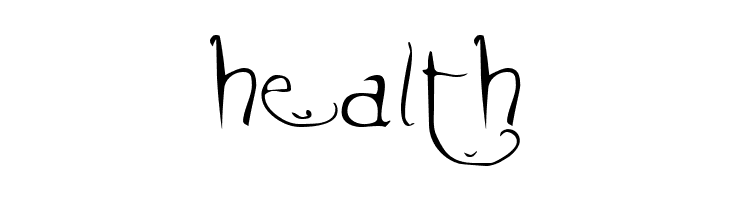
( Andrey Kochetov - www.inglobal.ru )
A modern sans-serif font with rounded edges and uniform strokes, offering excellent readability.
( DJB Fonts - Darcy Baldwin - darcybaldwin.com )
A playful font with characters enclosed in ovals, offering a clean and modern look.
( Derek Shafer - derekshafer.myportfolio.com )
A pixelated, retro-style font with a digital, video game aesthetic.
( Fat Cat Fonts - Jennifer Dickert - www.fatcatfonts.com/ )
A whimsical, decorative font with curly, swirly elements and playful character designs.
( Ferdiansyah - creativemarket.com/ijemrockart )
A fluid, elegant handwritten font with a sophisticated and creative style.
( Ferdiansyah - creativemarket.com/ijemrockart )
A slanted, flowing script font with elegant, connected strokes.
( Ferdiansyah - creativemarket.com/ijemrockart )
A bold, flowing script font with elegant, fluid strokes.
( Ferdiansyah - creativemarket.com/ijemrockart )
A lively, cursive font with smooth, flowing strokes and a handwritten style.
( Ferdiansyah - creativemarket.com/ijemrockart )
A graceful and elegant script font with flowing, interconnected characters.
( Ferdiansyah - creativemarket.com/ijemrockart )
An elegant script font with flowing, decorative cursive letterforms.